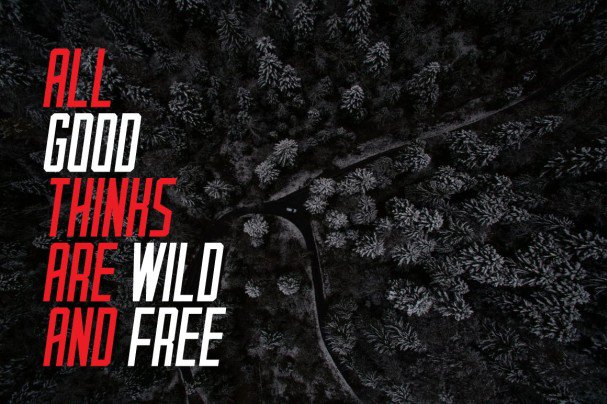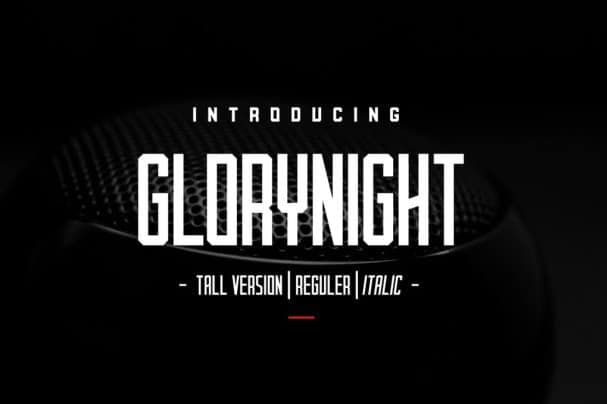
Glorynight Tall Version Font
Here is the Glorynight Tall Version Font that is famous for its text era feature. This typeface is likewise used within the tattoo designing, With this font‚Äôs beneficial spacing and splendid device, that looks as thunderstorm font you could without a problem create any designs of your choice on the way to provide gold-well-known nice and legibility. It’s far drastically used for masses of packages distinctly for signage and others hire alike. You’ll see that masses of notable elements that this font shape can gift and it has masses of font weights available as properly.
Glorynight Tall Version Font Free This font aspect an italic, hand-drawn, ambitious texture. Brilliant for any headline or titling functions. This font is also seemed because of the gilroy font for textual content. It seems like a thunderstorm font and aqua font.
This font is an everyday font with masses of many skills and hundreds of font weights to be had to provide. Download This ailerons font in growing a photo, charge models, and in each unique designing carry out wherein blanketed within the rational advice. It became first released and it’s been very known as an entire lot as inside the meantime. It’s far much like art gift-day appreciably utilized by artists to many format layouts like signs and alternate titles for higher readability and excellent effect.